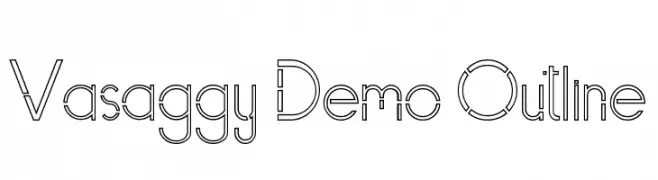
A geometric, outlined font with a modern and technical aesthetic.
A modern, geometric outline font with bold, clean lines and balanced spacing.
A bold, geometric outline font with a modern and clean aesthetic.
A bold, outline-style font with geometric forms and a modern aesthetic.
A modern, geometric outline font with clean lines and a minimalist style.
A bold, geometric outline font with a modern, industrial style.
A modern, playful outline font with bold, rounded characters.
A modern outline font with geometric and structured letterforms.
A modern, geometric inline font with a bold and minimalistic design.
A modern, outlined font with a playful and bold style.